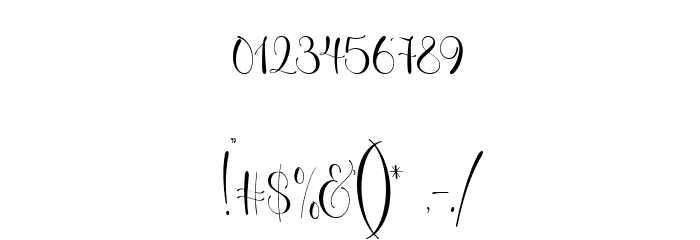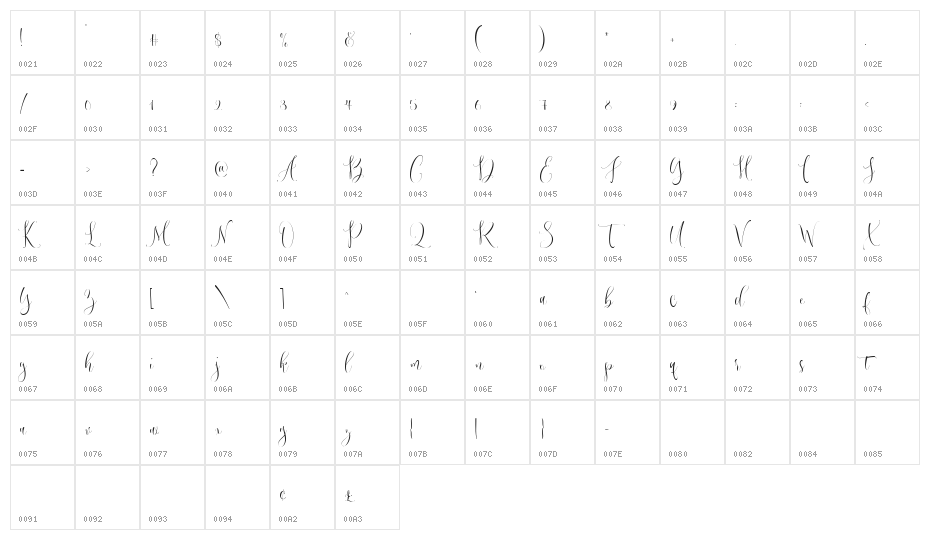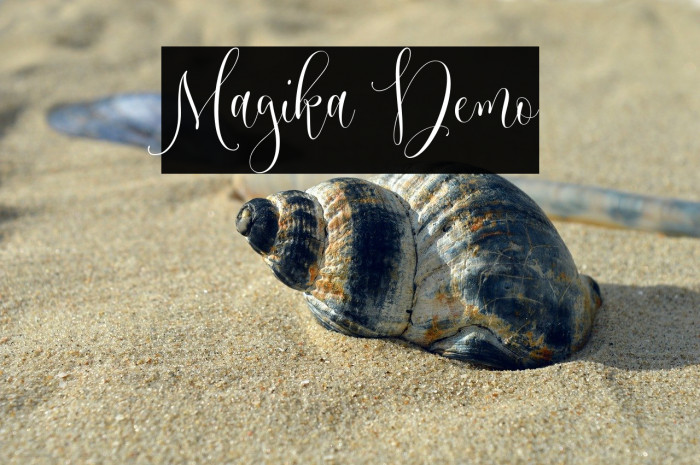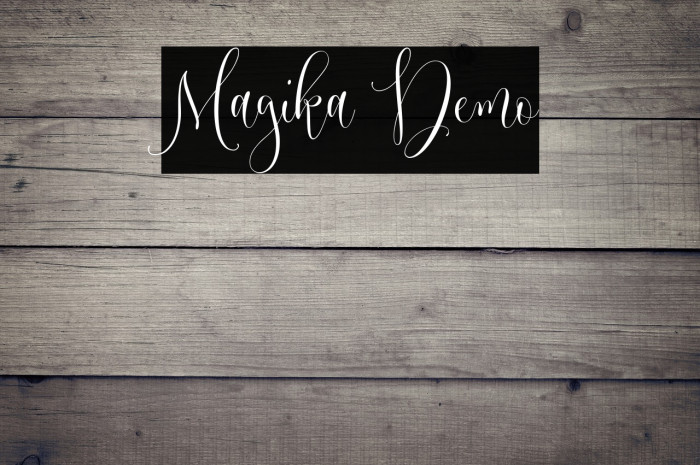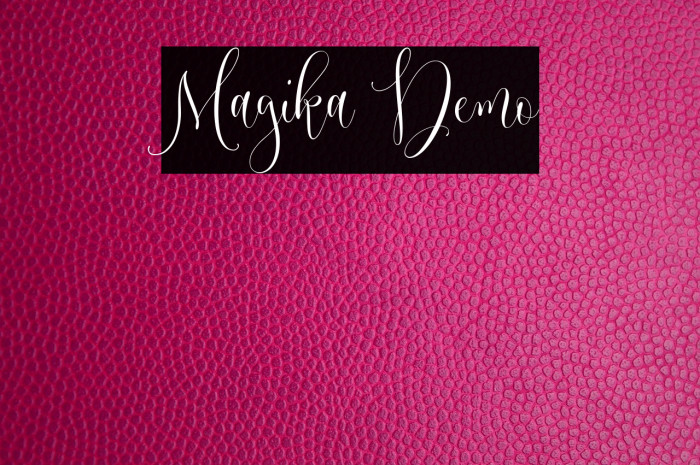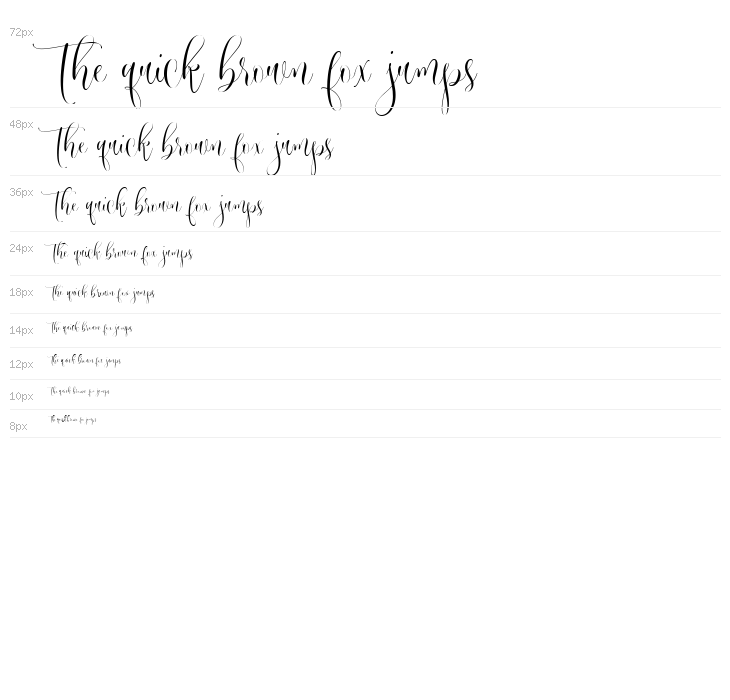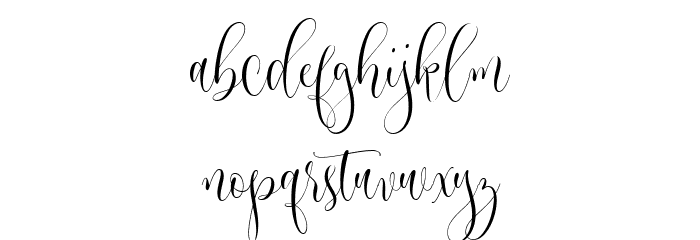
Magika Demo Font
Magika Demo Description
This elegant script font features flowing, interconnected strokes that create a sense of movement and grace. The uppercase letters are characterized by their tall, sweeping ascenders and descenders, giving them a dramatic and sophisticated appearance. The lowercase letters maintain a consistent style, with smooth curves and delicate loops that enhance the font's overall fluidity. The numerals are designed to complement the letters, with similar curves and a balanced structure. Special characters are included, maintaining the same ornate style, making this font versatile for various design needs. Its intricate details and artistic flair make it ideal for projects that require a touch of elegance and refinement.
| Overall Style | Elegant, Artistic |